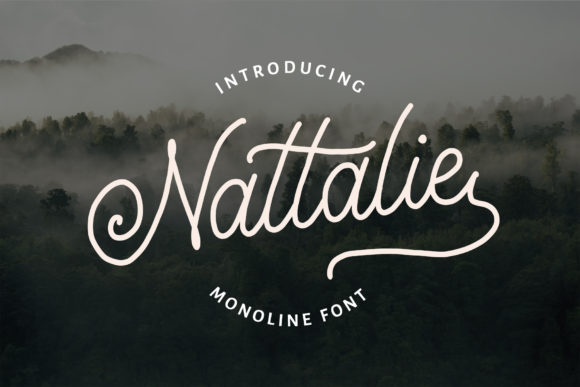
Our Nattalie font family is a collection of sweet and soft hand-lettered fonts that will add a touch of personality to your projects. With its authentic feel, Nattalie is perfect for creating gorgeous wedding invitations, beautiful stationary art, eye-catching social media posts, and cute greeting cards.
Nattalie is a script font family, which means that it is designed to look like handwriting. This gives it a more personal and intimate feel than other types of fonts. The Nattalie font family includes a variety of weights and styles, so you can find the perfect font for your project.
Whether you're a professional designer or a hobbyist, the Nattalie font family is a great choice for adding a touch of elegance and sophistication to your work.
Here are just a few of the ways you can use the Nattalie font family:
* Create beautiful wedding invitations and save-the-dates
* Design eye-catching social media posts
* Make custom greeting cards
* Create unique stationary art
* Add a personal touch to your blog or website
The Nattalie font family is also perfect for use in metallic text. The soft, flowing lines of the font will give your text a luxurious and elegant look.
If you're looking for a font family that will add a touch of personality and style to your projects, then the Nattalie font family is the perfect choice.